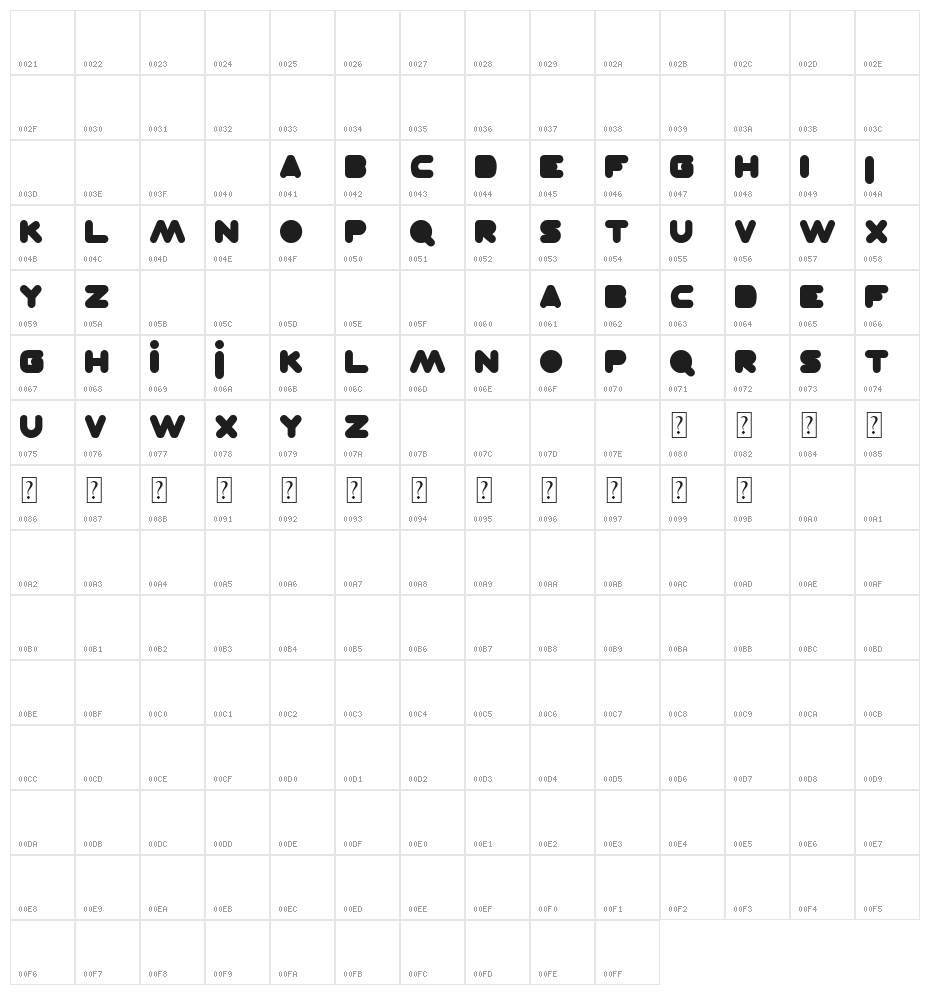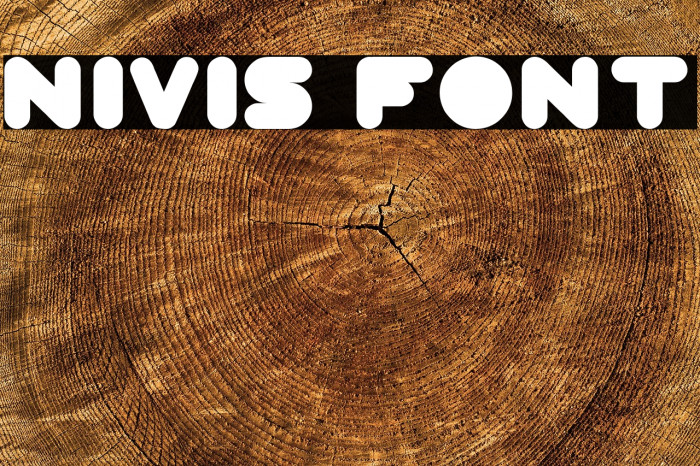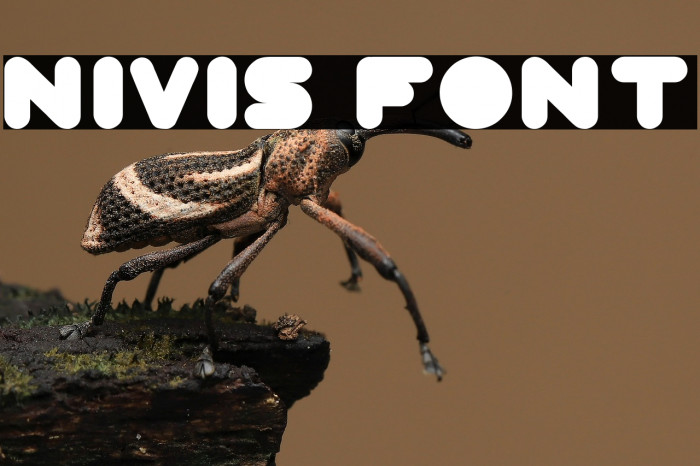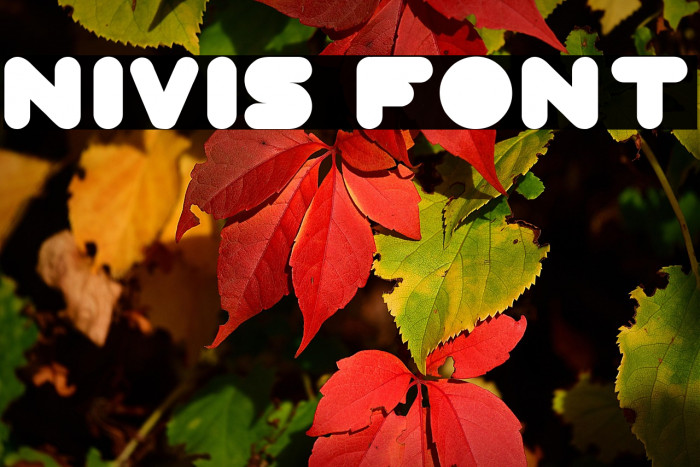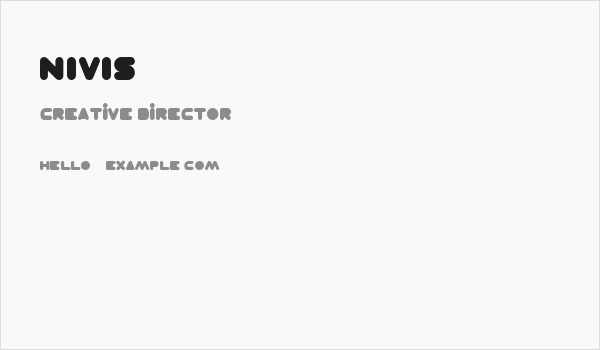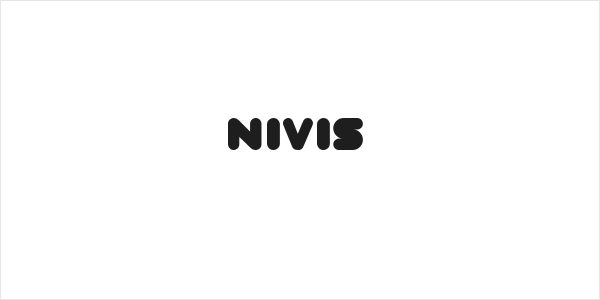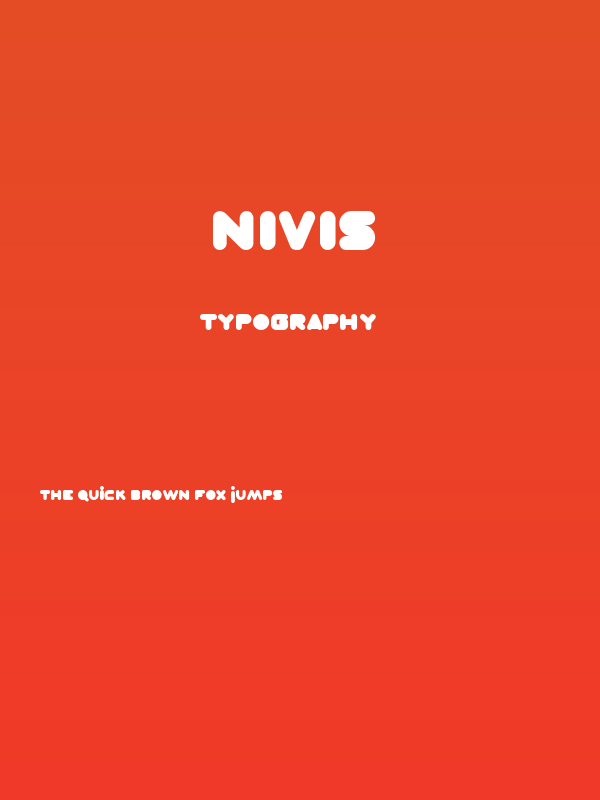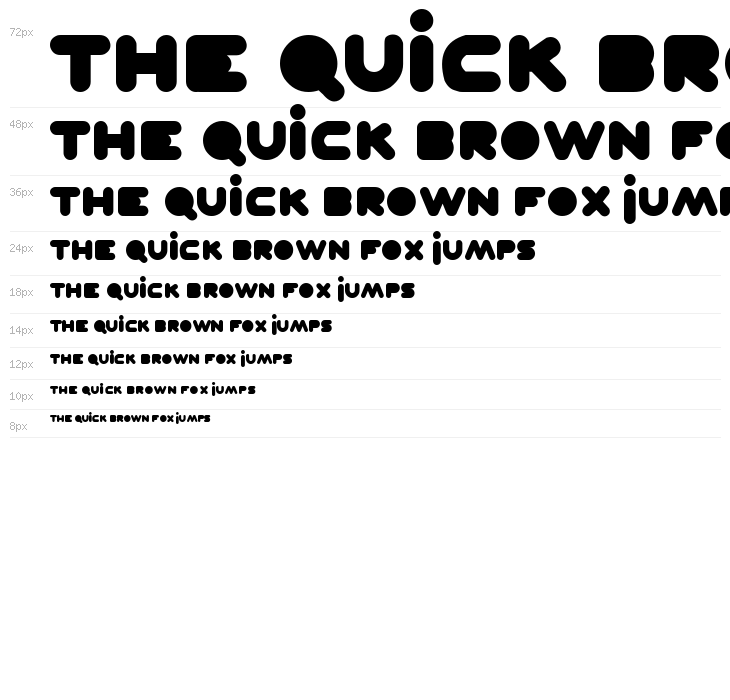
NIVIS Font
NIVIS Description
This font features a bold, rounded style with a playful and modern aesthetic. The characters are uniformly thick, creating a strong visual impact. The rounded edges and consistent stroke width give it a friendly and approachable feel. It is highly legible and stands out due to its unique design, making it suitable for attention-grabbing headlines or logos. The font maintains a consistent height across all characters, contributing to its cohesive appearance. Its geometric shapes and smooth curves offer a contemporary look that is both stylish and versatile.
| Proposed Projects | Ideal for branding, advertising, posters, and children's book covers. |